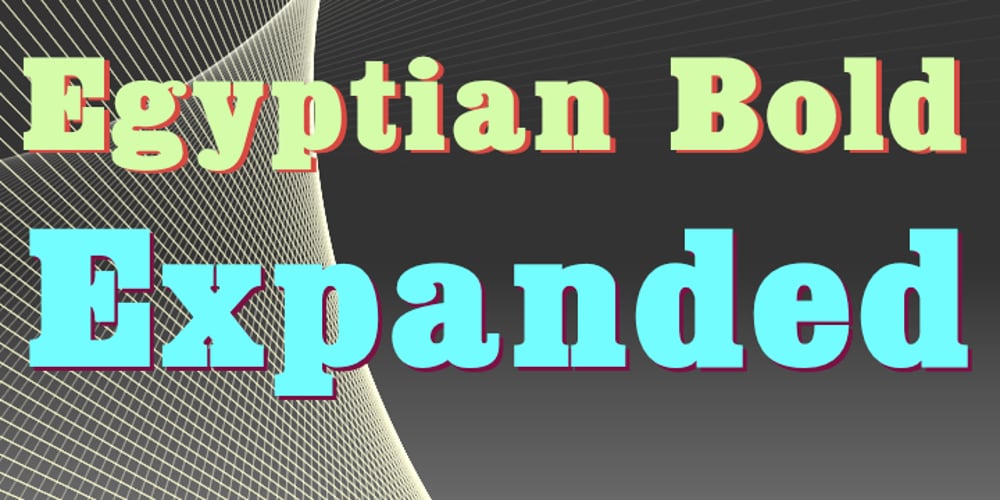
Egyptian Bold Expanded
Egyptian Bold Expanded font
Egyptian Bold Expanded Font Family was designed by Jordan Davies and published by Wooden Type Fonts. Egyptian Bold Expanded contains 1 styles and family package options. One of the original Egyptian types. With a tall x-height, very short descenders, expanded version.